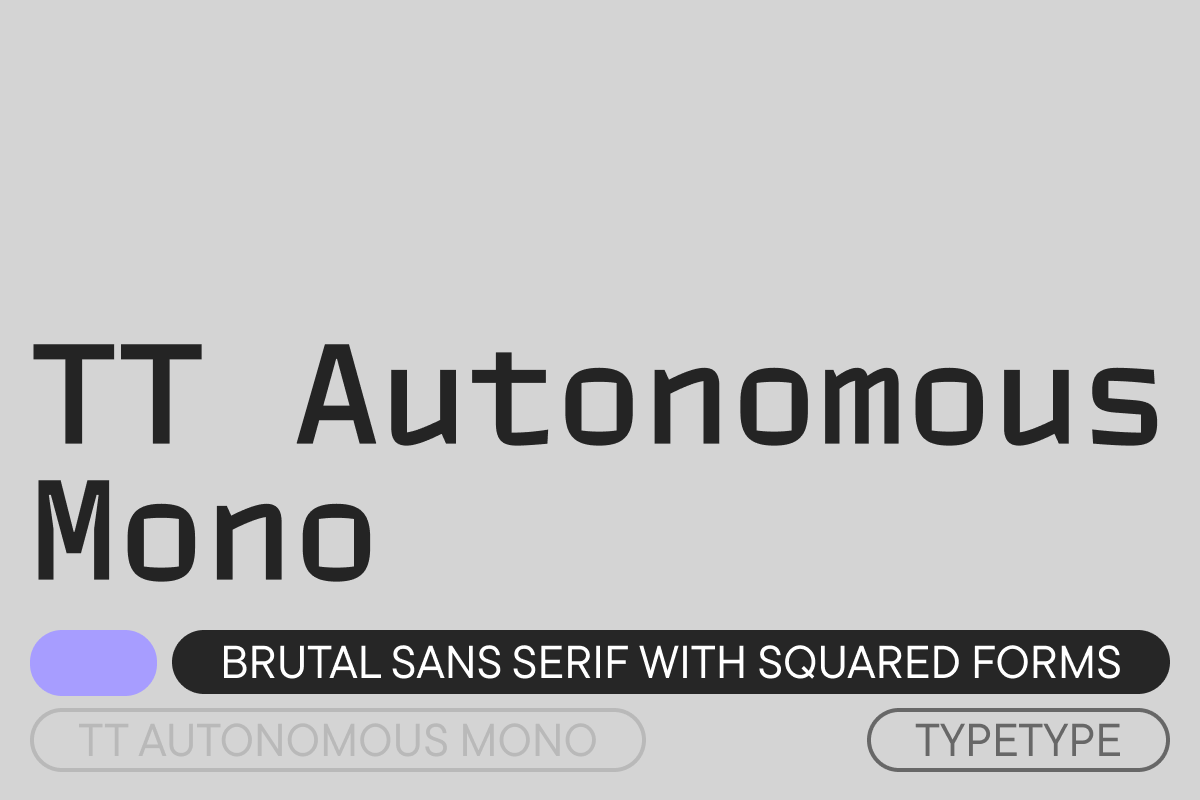
TT Autonomous Mono Medium
TT Autonomous is a modern brutal technological sans serif. The basic visual characteristic of the typeface is the noticeable squareness of the characters and angular internal space. The width of the characters is inspired by automobile logotype proportions, which are mostly rather wide. Thanks to the squareness of the characters inherited from the main family and the real monospace properties, the character forms in the TT Autonomous Mono subfamily turned out very specific and interesting.